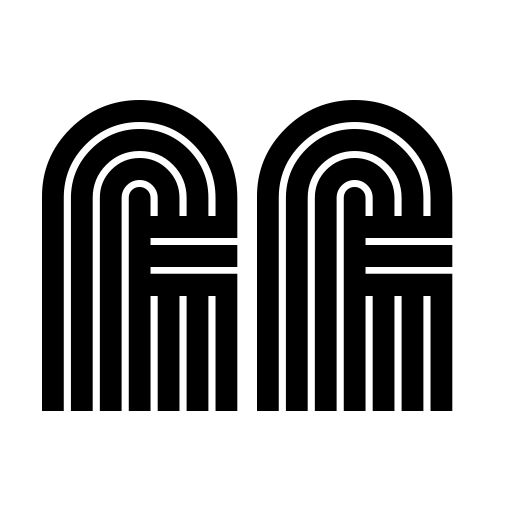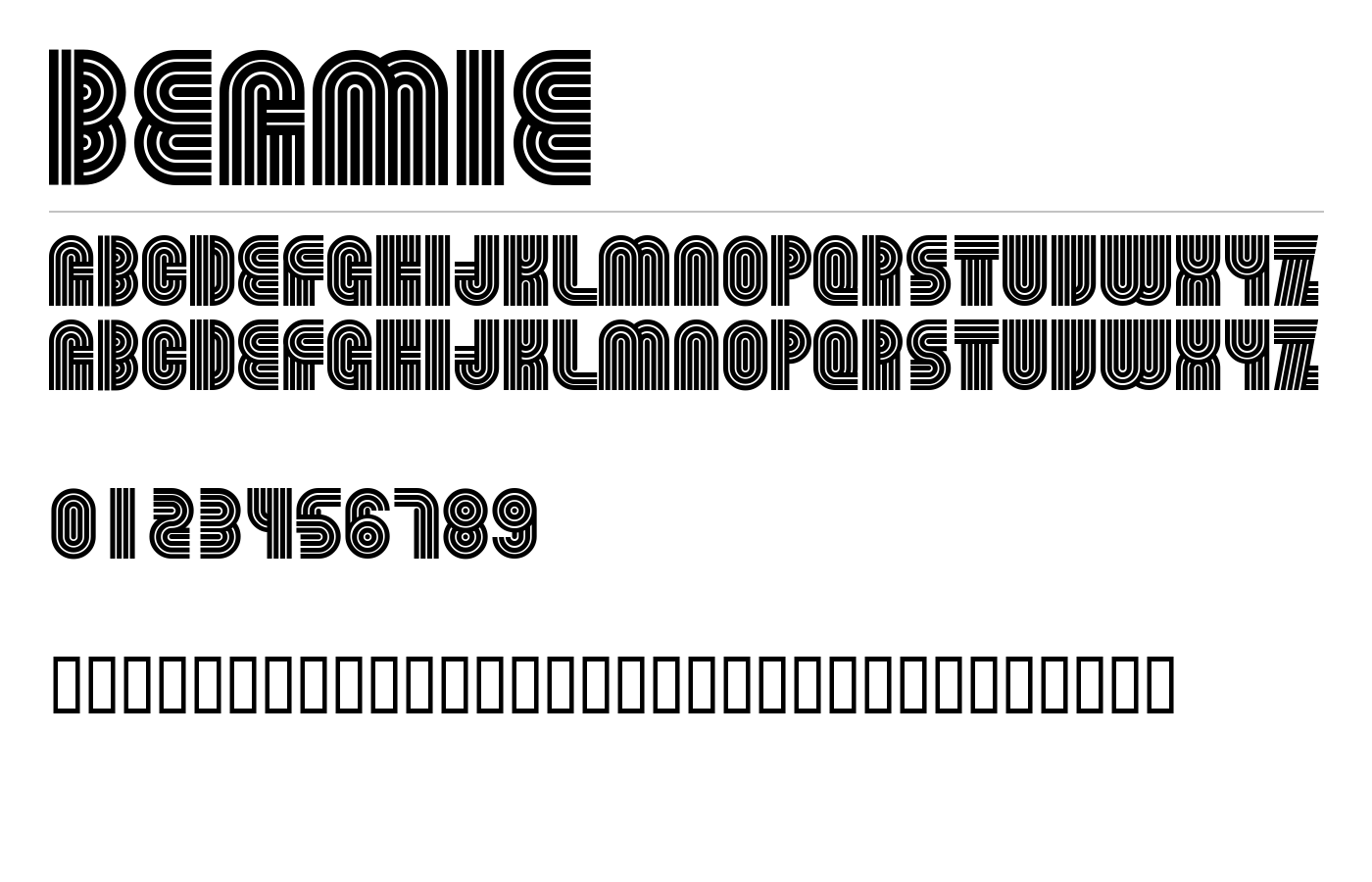
Beamie is a stylish, bold display font with a unique multi-line design that creates a striking visual rhythm. Its geometric and modern feel, combined with the intricate layering of lines, makes it perfect for eye-catching logos, posters, and headlines where a playful yet sophisticated look is desired. This font excels in settings that seek to blend art deco flair with contemporary design flair.
Beamie Font
About Beamie Font